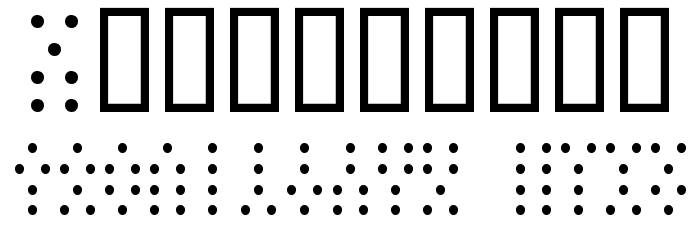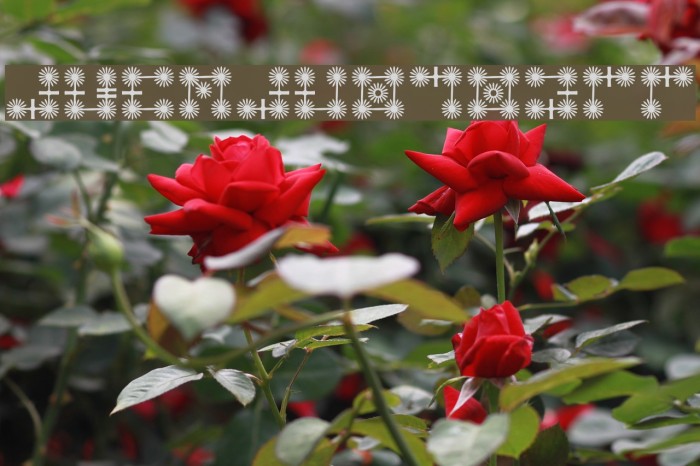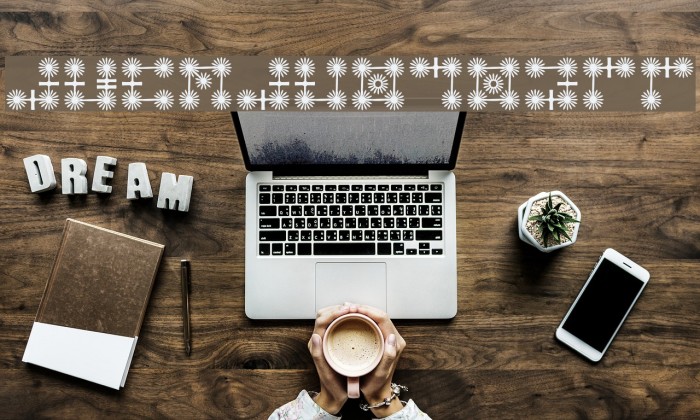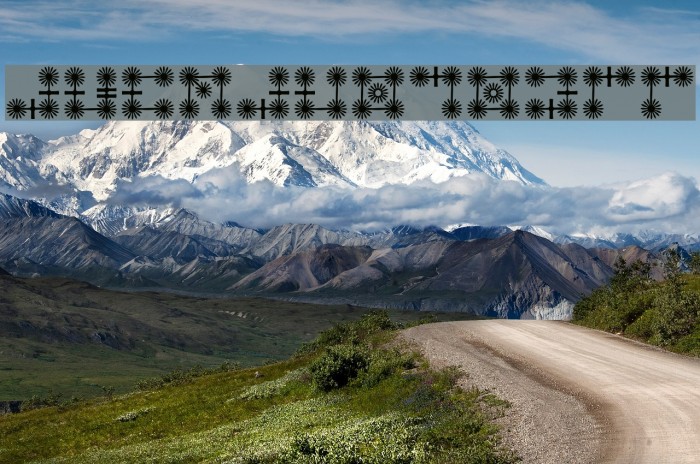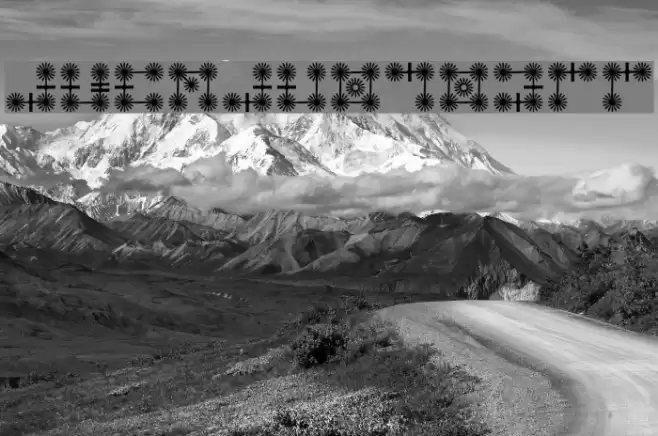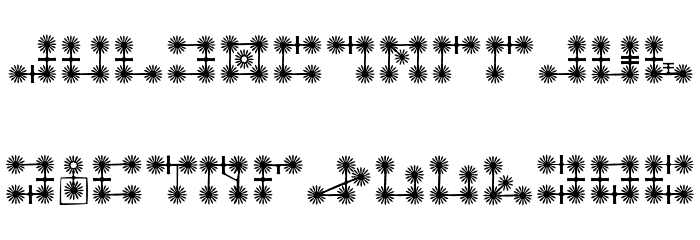
AlphabetGenii Font
AlphabetGenii Description
This decorative font features a unique design where each character is composed of intricate starburst patterns, creating a visually striking and ornamental appearance. The uppercase letters are bold and prominent, while the lowercase letters maintain the same decorative style, ensuring consistency throughout the typeface. Numbers are represented with a solid, blocky design, contrasting with the ornate letters. Special characters are also included, maintaining the overall decorative theme. This font is ideal for projects that require a distinct and eye-catching aesthetic.
| Proposed Projects | Ideal for creative projects such as event invitations, posters, and artistic branding that require a unique and decorative touch. |